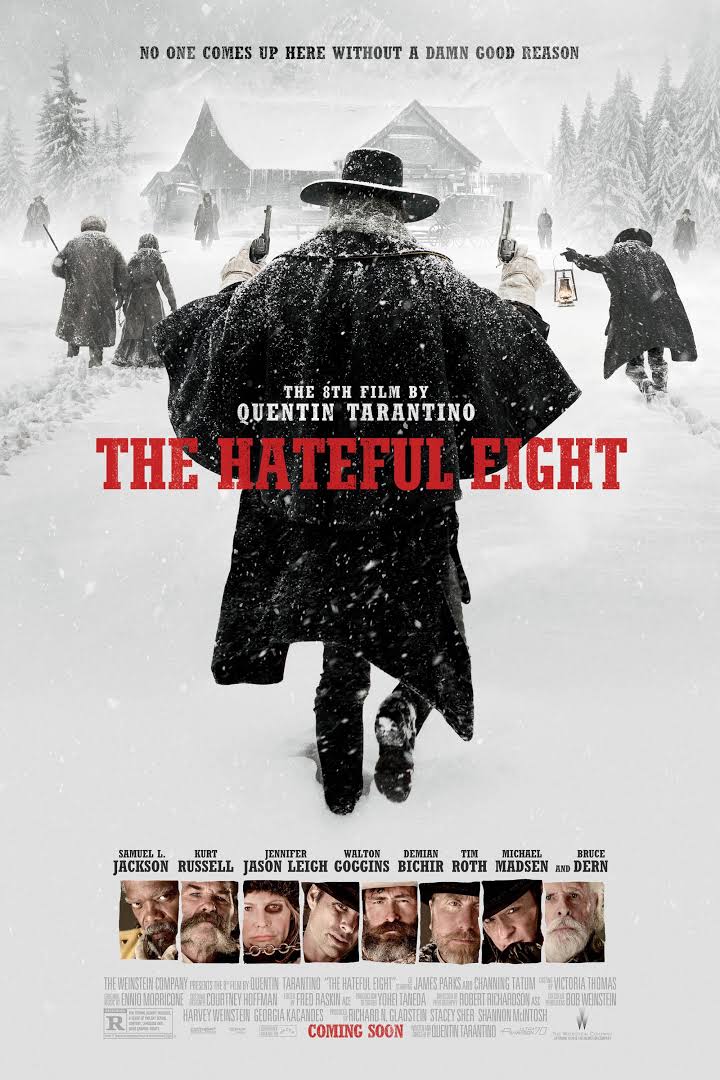
The Hateful Eight Font
Fonts in UseThe Hateful Eight is a Western film released in 2015, directed by Quentin Tarantino. It follows the story of eight strangers who are stranded together in a blizzard and must navigate their way through dangerous obstacles to survive.
The Hateful Eight title in the poster is designed based on a font similar to Stymie Extra Bold created by Morris Fuller Benton in 1931 for the ATF. You can view and purchase the font here.